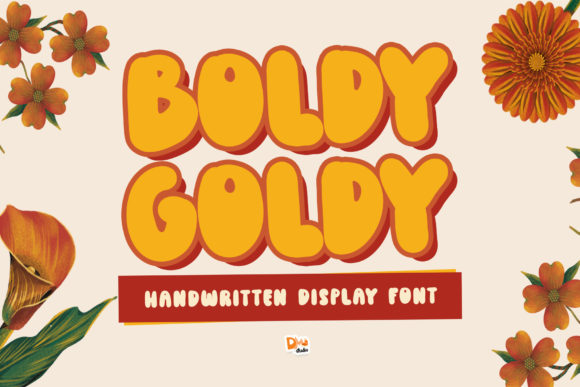
The Boldy Goldy Font: A Friendly Favorite for Designers and Crafters
I still remember the design project that led me to discover the Boldy Goldy font. I was working on a children’s party invitation for a client who wanted something fun, playful, and eye-catching. As I scrolled through my font library, I stumbled upon Boldy Goldy, and it instantly clicked. The font’s childish charm and impeccable friendliness made it perfect for the project. In this article, I’ll share my experience with Boldy Goldy, its features, and how to make the most of it in your designs.
An Honest Review of Boldy Goldy
What I Love About Boldy Goldy
• ✨ Easy to read: Boldy Goldy is a display font that’s surprisingly legible, even at smaller sizes.
• ✅ Friendly vibe: The font exudes warmth and approachability, making it perfect for designs that require a personal touch.
• 🎨 Versatile: Boldy Goldy works well for various design projects, from crafts and digital design to presentations and greeting cards.
While Boldy Goldy is an excellent font, it’s not without its quirks. For instance:
• 🤔 Limited serif variations: Boldy Goldy is primarily a sans-serif font, which might limit its use in certain design projects that require serif fonts.
• ⚠️ Occasional kerning issues: As with any font, you might encounter kerning issues, especially when using Boldy Goldy at larger sizes or in combination with other fonts.
The Backstory of Boldy Goldy
Boldy Goldy was designed with the intention of creating a friendly, approachable font that would appeal to designers and crafters alike. The font’s creator aimed to craft a font that would be easy to read, versatile, and perfect for a wide range of design projects. While the font’s exact origins are unclear, its popularity among designers and crafters is undeniable.
Q: Is Boldy Goldy suitable for body text?
A: While Boldy Goldy is an excellent display font, it’s not ideal for body text due to its bold and playful nature. However, you can experiment with using it for short paragraphs or headings.